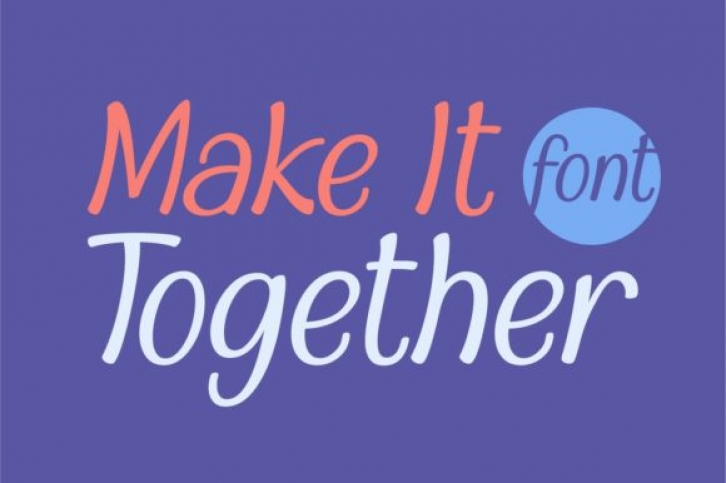
Make It Together is a delicate, elegant and flowing handwritten font. It has beautiful and well balanced characters and as a result, it matches a wide pool of designs. Add it to your most creative ideas and notice how it makes them come alive